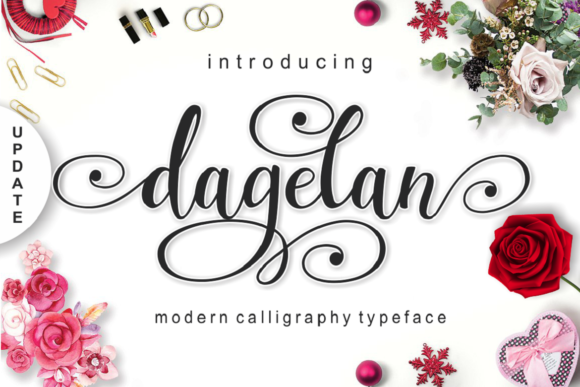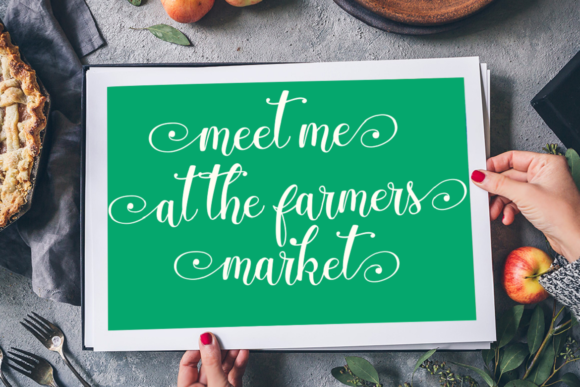
About Dagelan Font
Introducing “Dagelan,” an enchanting and elegant handwritten font that exudes charm and sophistication. With its graceful and flowing letters, “Dagelan” brings a touch of timeless beauty to any design project, making it perfect for a wide range of applications. From wedding invitations to thank you cards, quotes to greeting cards, logos to business cards, and more, “Dagelan” adds a touch of handwritten artistry to every design.
For wedding invitations, “Dagelan” sets the perfect tone for a celebration of love and joy. Its elegant and flowing style creates an air of romance, making your invitations truly captivating. Whether it’s a classic, vintage, or modern-themed wedding, “Dagelan” complements the occasion with its touch of sophistication and charm.
Expressing gratitude becomes even more heartfelt with “Dagelan” on your thank you cards. Its graceful letters convey a sense of warmth and appreciation, making your messages feel personal and genuine. Your recipients will be delighted by the thoughtful and elegant touch that “Dagelan” brings to each card.
When it comes to crafting quotes or inspirational messages, “Dagelan” adds a sense of elegance and refinement to the words. Its flowing strokes enhance the beauty of the text, making your quotes visually appealing and impactful. Whether you’re creating wall art or social media graphics, “Dagelan” elevates the message and captures the attention of your audience.
For greeting cards, “Dagelan” becomes the perfect choice to convey heartfelt sentiments. Its charming and elegant style enhances the emotional connection, making your cards truly special and meaningful. Whether it’s for birthdays, anniversaries, or special occasions, “Dagelan” brings a touch of handwritten beauty to your designs.
The versatility of “Dagelan” extends to branding and logo design. Its graceful and flowing letters add a touch of sophistication to your brand identity, leaving a lasting impression on your customers. From luxury brands to creative businesses, “Dagelan” becomes the signature element that represents your brand with elegance and style.
With its charming and elegant touch, “Dagelan” becomes the ideal choice for business cards, making a memorable first impression on potential clients and partners. Its handwritten allure adds a personal and artistic touch to your contact details and branding.
Every design project can benefit from the graceful elegance of “Dagelan.” Its versatility and charm make it the perfect addition to any creative idea. Whether you’re designing wedding materials, creating branded content, or crafting artistic pieces, “Dagelan” elevates your projects to a new level of beauty and sophistication.
So, embrace the charm and elegance of “Dagelan” and let its flowing letters inspire your creativity. Whether it’s for wedding invitations, thank you cards, quotes, greeting cards, logos, business cards, or any other design that needs a handwritten touch, “Dagelan” adds a touch of timeless beauty and captivates the hearts of all who see it.